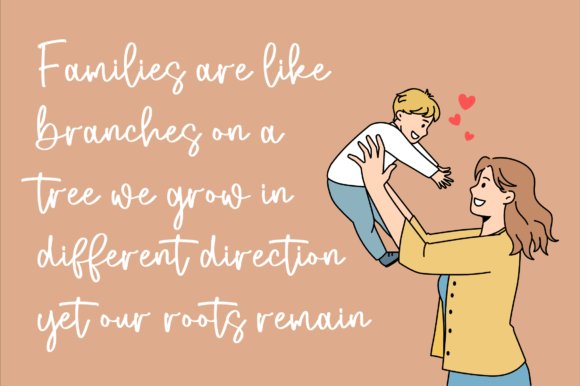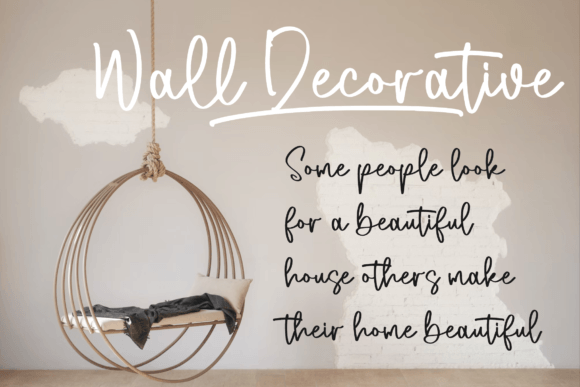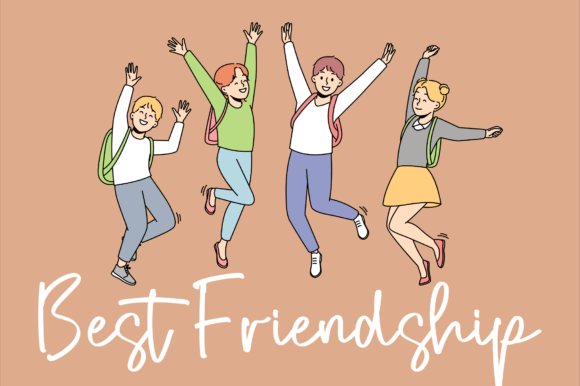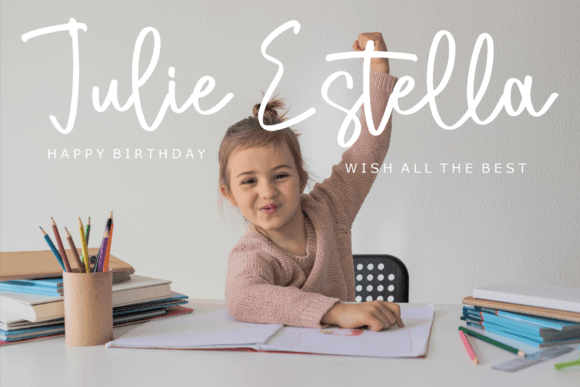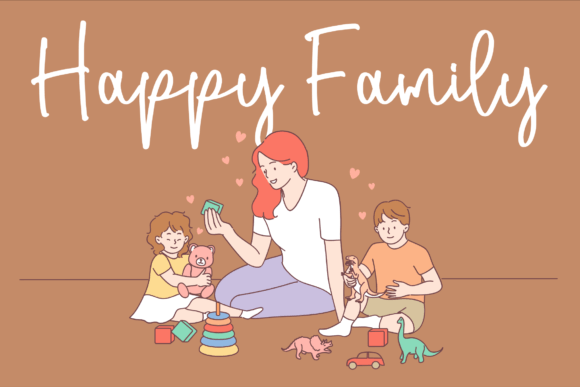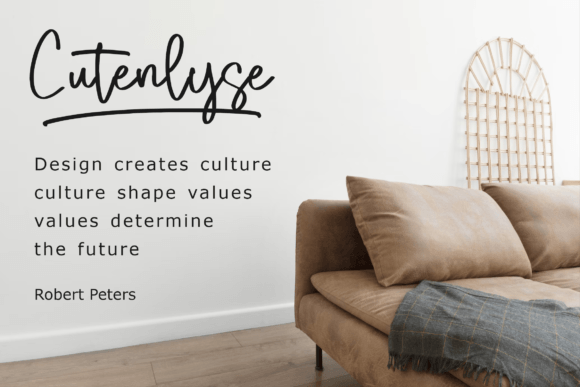
Introduction to Santamola Font
Imagine you’re brainstorming ideas for a new branding project, and suddenly, the perfect handwritten script pops into your mind. You envision it on a beautifully designed mug, a set of elegant stationery, or a stunning book cover. This is exactly the moment when the right font can make all the difference. For designers looking for a high-quality, free download that adds a touch of elegance to any project, the Santamola Font is an excellent choice.
This cute handwritten font is designed to bring a personal and unique touch to your creative projects. With its transparent background and versatile design, Santamola Font is perfect for logos, branding projects, homeware designs, product packaging, and much more. Whether you’re working on a special event invitation, a product label, or a photography watermark, this font is sure to elevate your design to the next level.
As a valuable design resource, Santamola Font offers a unique blend of style and functionality, making it an essential addition to any designer’s toolkit. In this article, we’ll delve into the world of Santamola Font and explore its many uses, benefits, and features.
Key Features of Santamola Font
- Unique and stylish font with a transparent background, perfect for adding a touch of elegance to your designs.
- Comes in a single font size, with a resolution of 300 DPI for crisp and clear rendering.
- Designed to be versatile and adaptable, suitable for a wide range of creative projects, from logos to typography.
- Perfect for designers seeking a high-quality, free design resource to elevate their creative projects.
Honest Review: Santamola Font
I recently stumbled upon the Santamola Font while searching for a free design resource to enhance a creative project. As a designer, I’m always on the lookout for high-quality fonts that can elevate my work without breaking the bank. The Santamola Font is a beautiful, elegant script font that’s perfect for adding a touch of sophistication to your designs.
- ✨ High-quality design: The font is incredibly detailed and has a transparent background, making it easy to work with.
- ✨ Versatility: The font is suitable for a wide range of creative projects, from wedding invitations to blog posts.
- ⚠️ Limited character set: The font only includes uppercase and lowercase letters, which may be a limitation for some designers.
- ⚠️ No italic or bold styles: While the font is beautiful in its standard form, it would be great to have italic and bold styles available for added emphasis.
Overall, I’m really impressed with the Santamola Font, and I think it’s a great addition to any designer’s toolkit. While it may have a few limitations, the high-quality design and free download make it well worth using in your creative projects.
Designing with Santamola Font
When designing with the Santamola Font, consider using a transparent background to give your design a clean and modern look. Experiment with different font sizes, colors, and styles to get the most out of this versatile font.
The Santamola Font is commonly used in various creative projects such as logos, brochures, business cards, and social media graphics. Its high-quality design makes it an ideal choice for designers looking to create professional-looking designs.
Tips for Getting the Most Out of Santamola Font
To get the most out of the Santamola Font, experiment with different font combinations, use it in conjunction with other design elements, and don’t be afraid to try new and creative things.